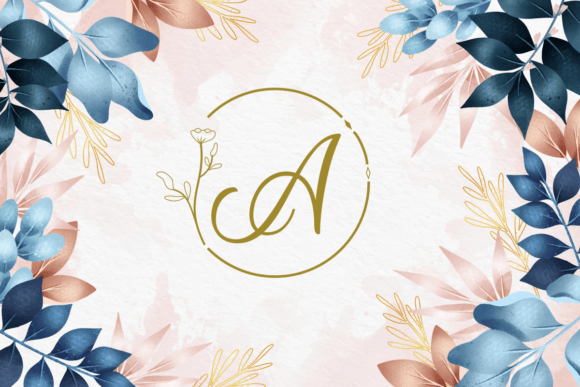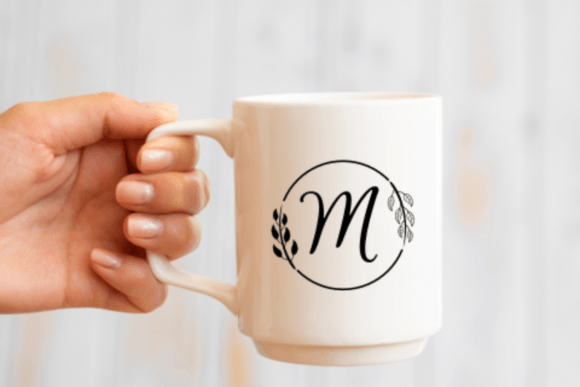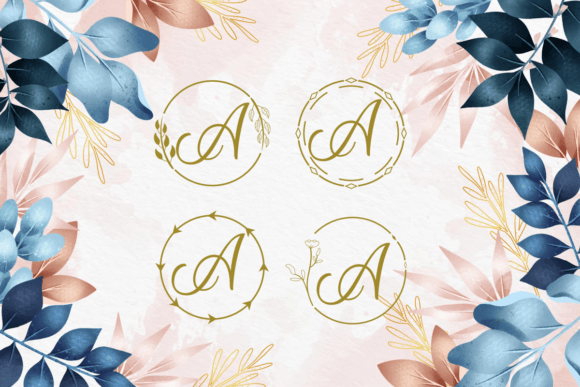
A New Dimension in Typography: Introducing Ariuna Monogram Font
Have you ever been browsing through a vintage bookstore and stumbled upon an old book with beautifully crafted monograms adorning its cover? The intricate details, the perfect balance of typography and design – it’s a moment that sparks your creativity and inspires you to bring your own unique touch to the world of typography.
That’s exactly what we’ve achieved with the Ariuna Monogram Font, a captivating blend of letterforms and floral elements that offers four distinct frame styles. This versatile font is designed to help you create stunning and personalized monogram designs that will elevate any project to the next level.
For designers, the Ariuna Monogram Font is a valuable asset, providing endless possibilities for creative expression and adding a touch of elegance to any design. Whether you’re working on a wedding invitation, a logo, or a branding project, this font is sure to impress and leave a lasting impression.
Ariuna Monogram Font Key Features
- Font Family: Ariuna Monogram
- Unique Characteristics: Distinctive monogram design, elegant script, and ornate details
Ariuna Monogram Font Review
I was excited to dive into the Ariuna Monogram Font, but my experience was a mixed bag. Here’s what I liked and didn’t like:
- Unique and elegant design: The font’s monogram style is both sophisticated and eye-catching.
- Good legibility: Despite its complex design, the font is relatively easy to read, especially at larger sizes.
- Customization options: The font comes with various ligatures and swashes, allowing for a high degree of customization.
- Complexity: The font’s intricate design can be challenging to work with, especially for beginners.
- Limited compatibility: I encountered issues with the font’s rendering in certain software and platforms.
- Lack of standardization: The font’s inconsistent spacing and sizing can make it difficult to maintain a uniform look across different elements.
Overall, the Ariuna Monogram Font is a beautiful and unique addition to any design project. However, its complexity and limited compatibility make it a less-than-ideal choice for large-scale or commercial use. If you’re looking for a statement font for a specific project, it may be worth the investment, but be prepared to put in some extra effort to make it work.
For a monogram design, use the font to create a circular or oval shape with the initials.
Use the font in combination with other design elements, such as shapes and colors, to create a cohesive and visually appealing design.
Experiment with different font sizes and styles to create a unique and personalized monogram.
Use the font to create a custom logo or branding element for your business or organization.
The Ariuna Monogram Font is perfect for creating custom monograms for:
Business cards and letterhead
Personalized gifts and decorations
Custom logos and branding elements
Alternatives to Ariuna Monogram Font
Monotype Corsiva
Monotype Corsiva is a classic script font that resembles handwriting. It’s ideal for use in formal invitations, wedding cards, and other special occasions where a touch of elegance is needed. When to use: Formal events, elegant designs, and traditional settings.
Monotype Corsiva compares to Ariuna Monogram Font in its elegant and sophisticated feel, but it lacks the monogrammed initials feature. It’s a more versatile font that can be used for a wide range of applications.
Playfair Display is a luxurious script font that’s perfect for adding a touch of sophistication to designs. It’s ideal for use in high-end branding, luxury packaging, and premium marketing materials. When to use: Luxury brands, high-end products, and premium services.
Playfair Display compares to Ariuna Monogram Font in its elegant and luxurious feel, but it’s more formal and less playful. It’s a great choice for designers who want to convey a sense of high-end quality.